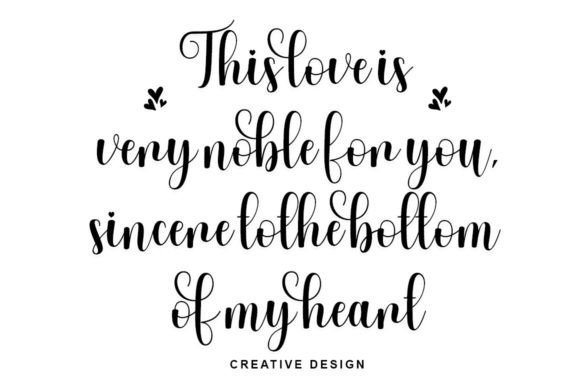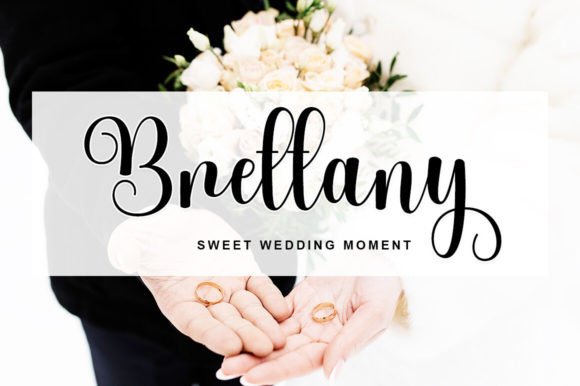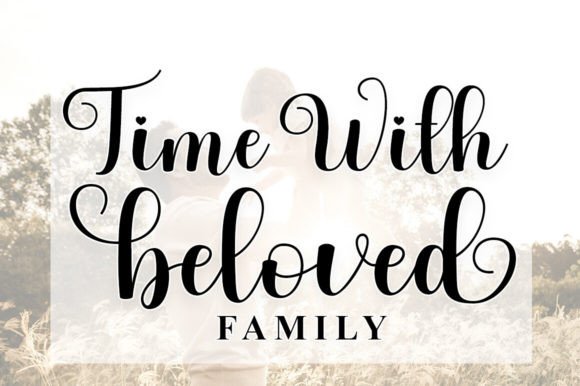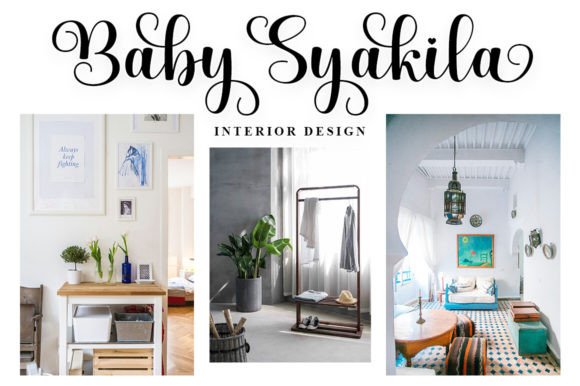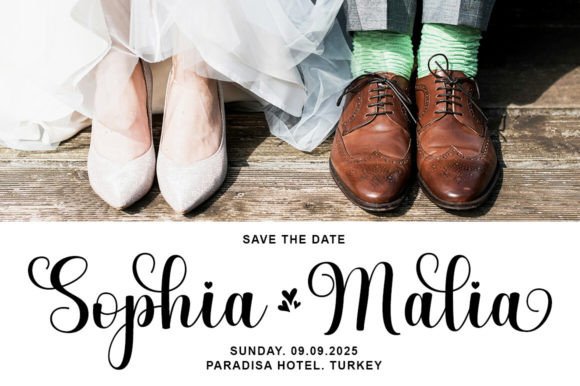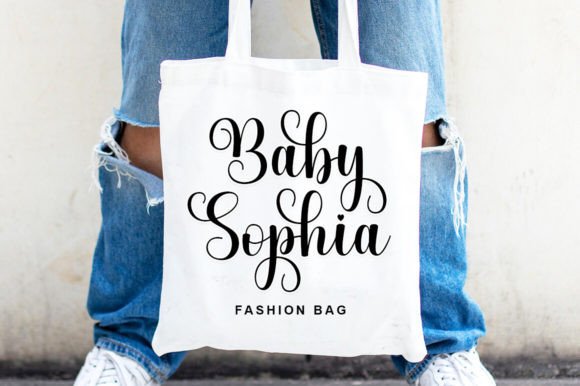
Baby Elisa Font: Elevate Your Designs with Modern Calligraphy
In the world of typography, few fonts manage to capture the essence of elegance and modernity as effectively as Baby Elisa. This stunning calligraphy design, which includes a Regular style, is not only visually appealing but also incredibly versatile. With its casual yet beautiful appearance and the added flair of swashes, Baby Elisa is the perfect choice for designers and crafters looking to add a touch of sophistication to their projects.
What is Baby Elisa Font?
Baby Elisa is a modern calligraphy font that embodies the perfect blend of elegance and simplicity. Its design is characterized by fluid lines, graceful curves, and a sense of movement that gives it a dynamic feel. The font comes in a Regular style, making it easy to read and use in a variety of contexts. One of the standout features of Baby Elisa is its inclusion of swashes, which can be used to add a decorative touch to your designs.
Key Features of Baby Elisa Font
- Modern Calligraphy Design: Baby Elisa boasts a contemporary calligraphy style that is both trendy and timeless.
- Regular Style: The font’s regular style ensures readability, making it suitable for both headings and body text.
- Casual and Beautiful: Its casual appearance makes it perfect for less formal projects, while its beauty ensures it stands out in any design.
- Swashes: The inclusion of swashes allows for added decoration and flair, enabling designers to create unique and eye-catching pieces.
- Versatile: From logos and product packaging to wedding invitations and book covers, Baby Elisa’s versatility knows no bounds.
Uses of Baby Elisa Font
- Logos: Create memorable and elegant logos that stand out.
- Product Packaging: Elevate your product’s packaging with a sophisticated and modern look.
- Wedding Invitations: Add a touch of romance and elegance to your wedding invitations.
- Branding: Use Baby Elisa for your brand’s typography to convey a sense of luxury and modernity.
- Headlines: Make your headlines pop with a stylish and contemporary font.
- Signage: Perfect for creating eye-catching signs that are both clear and stylish.
- Labels and Signatures: Add a personal touch to your labels and signatures.
- Book Covers and Posters: Create stunning book covers and posters that capture attention.
- Quotes: Highlight inspirational quotes with a beautiful and modern font.
- Pair with Complementary Fonts: When using Baby Elisa for headings, pair it with a clean sans-serif font for body text to ensure readability and visual balance.
- Adjust Size and Color: Experiment with different sizes and colors to make the most of the font’s features, especially its swashes.
- Use Swashes Wisely: Swashes can add a beautiful touch to your designs, but use them sparingly to avoid overwhelming the text.
- Consider the Context: While Baby Elisa is versatile, consider the context and audience of your design to ensure the font aligns with the message.
Baby Elisa font is a modern calligraphy design that offers a perfect blend of elegance, versatility, and beauty. Its regular style, coupled with the charm of swashes, makes it an excellent choice for a wide range of design projects. Whether you’re a professional designer or a crafter, Baby Elisa provides the tools to create stunning and memorable pieces. By incorporating Baby Elisa into your typography arsenal, you’ll be well-equipped to produce designs that are not only visually appealing but also uniquely captivating.